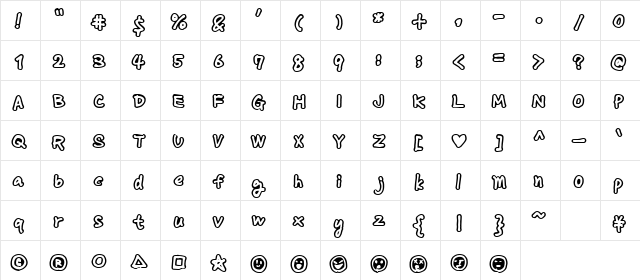
MondayOutline Regular
Design Context for MondayOutline Typeface
MondayOutline brings ornamental detail and strong personality to headlines and identities, where visual impact matters more than quiet functionality.
Font Pairing: Pair with a clean neutral sans-serif for body copy to let MondayOutline's character lead without overwhelming the composition.
Pro Tip: Use MondayOutline exclusively at display sizes — it was designed to be seen, not read at length. Let a neutral companion handle body copy.